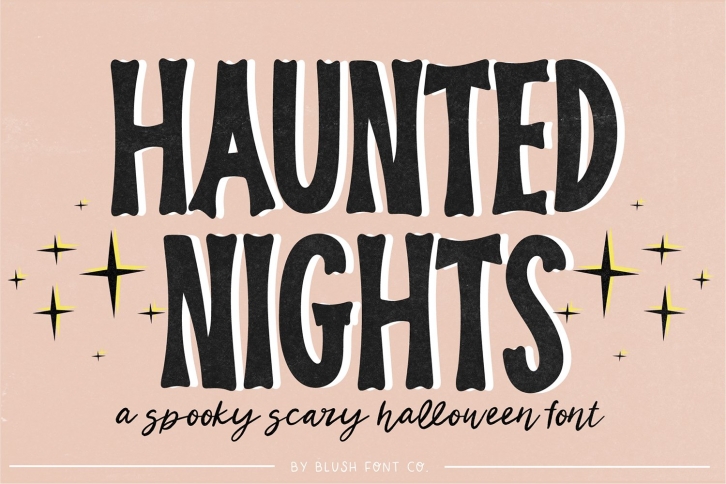
HAUNTED NIGHTS Spooky Halloween is a gorgeous font that was realeased on August 20, 2022. The font can be used in many style contexts and design environments. Perfect for invitations, magazines, websites, logos, and more! It was designed by Blush Font Co and the file size is 11.88 MB. Thanks for checking out this font!